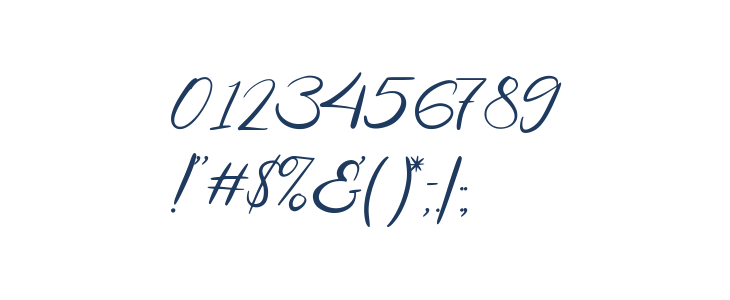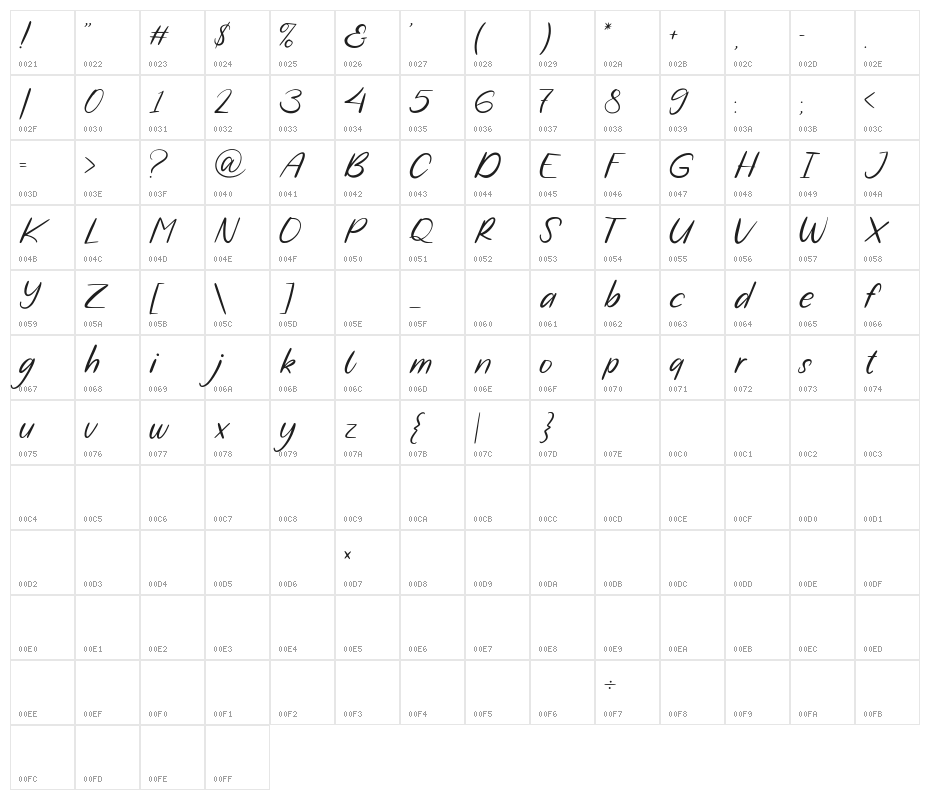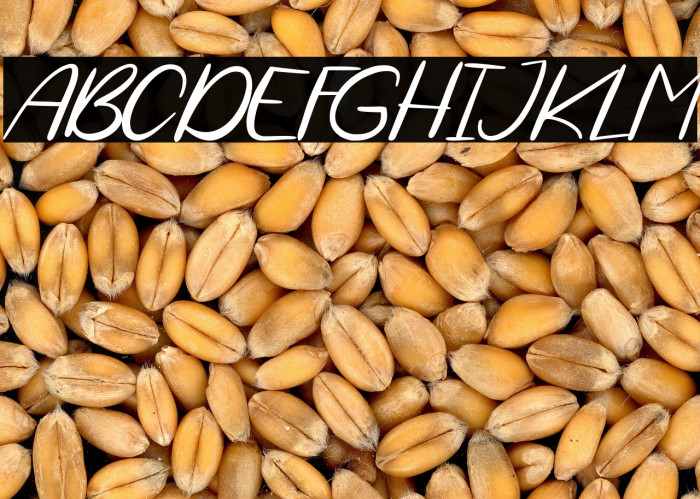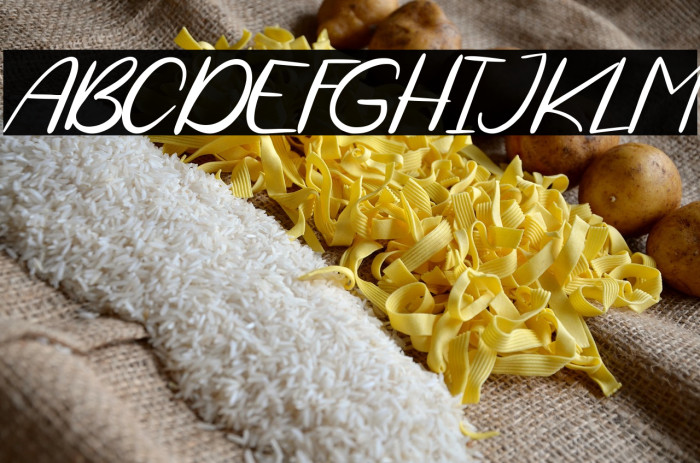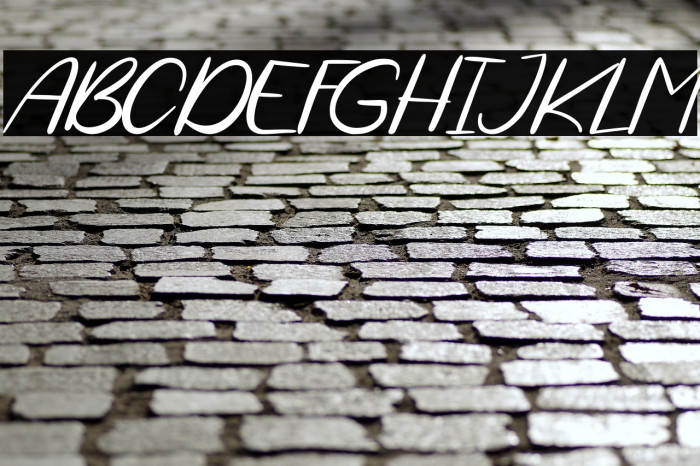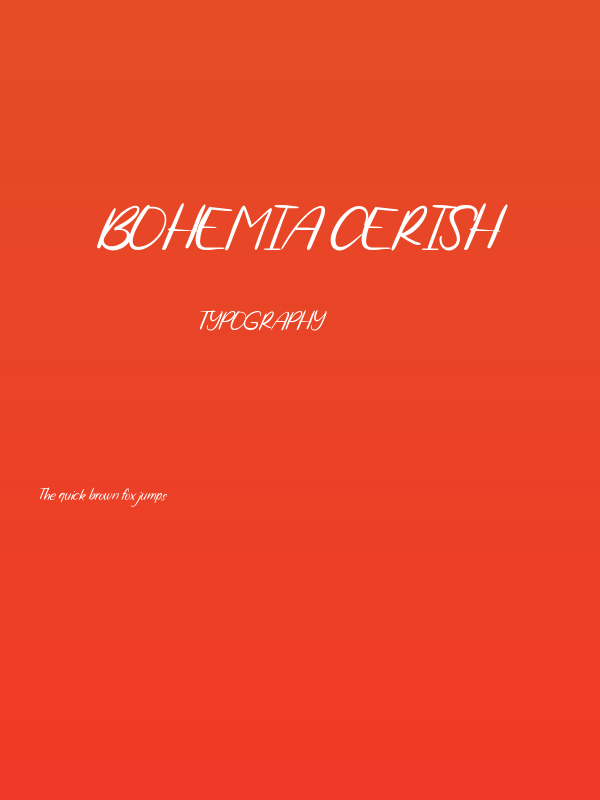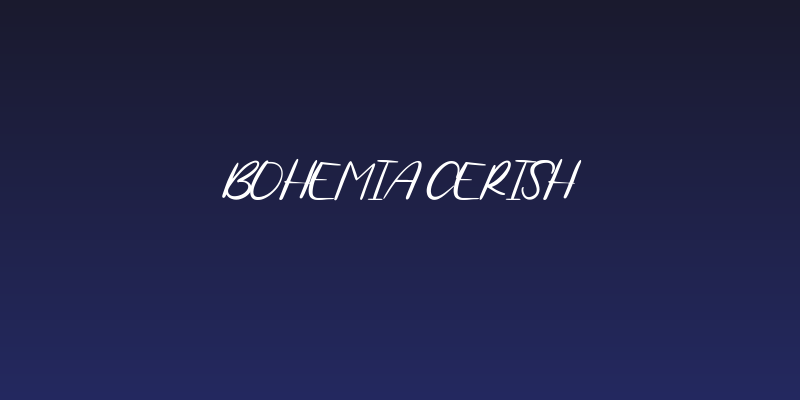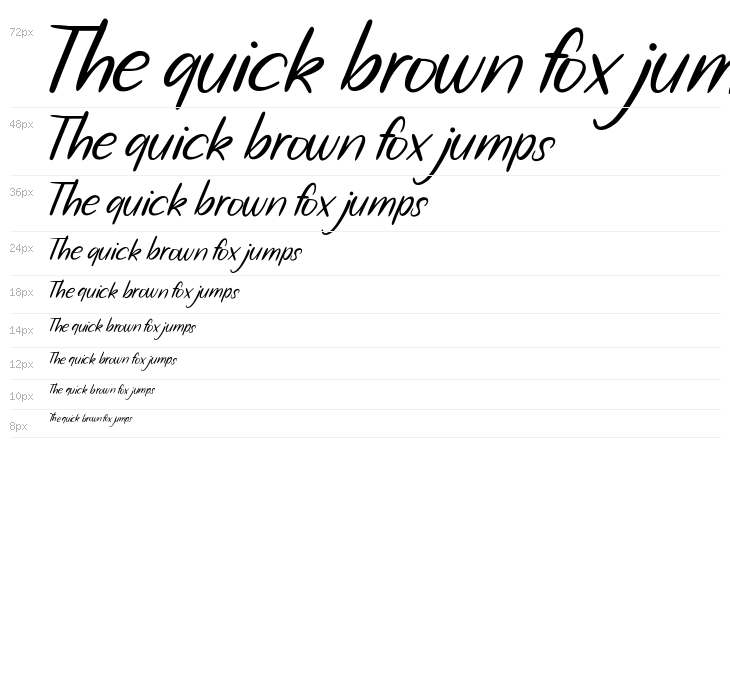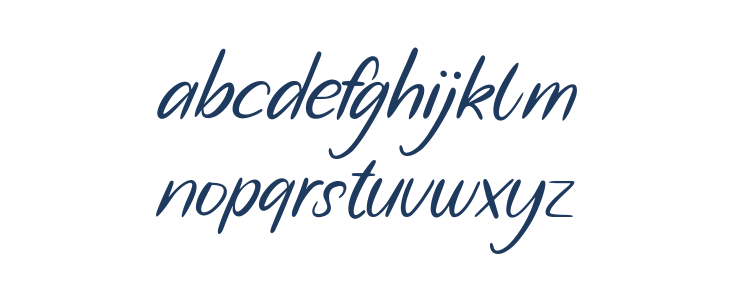
Bohemia Cerish Font
Bohemia Cerish Description
This font features a flowing, cursive style with elegant, elongated letterforms. The strokes are smooth and connected, giving it a handwritten appearance. The uppercase letters are slightly more formal, while the lowercase letters maintain a casual, friendly vibe. The numerals and special characters are consistent with the overall script style, ensuring a cohesive look across all characters. The font's design is both sophisticated and approachable, making it versatile for various design needs.